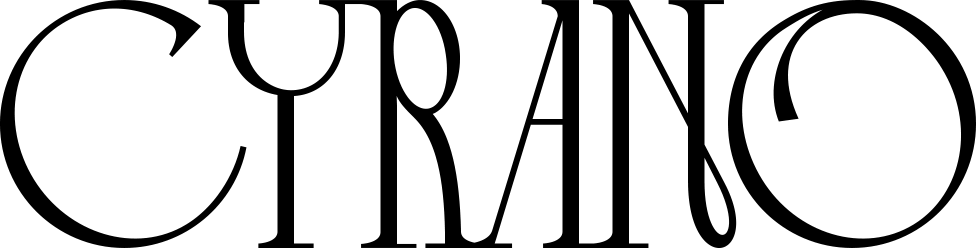
Cyrano Font
Serif fonts can act as a time machine to take all of us to sweet past days and revive many traditional and established vibes. Cyrano font also comes with this aim to bring many reliable vintages and trustworthy in your typography, website, fashion, or posters, and enrich them as well.
Although this ligature serif font is only available in uppercase letters, be sure that it will maintain or even improve status and worth in many writing situations.